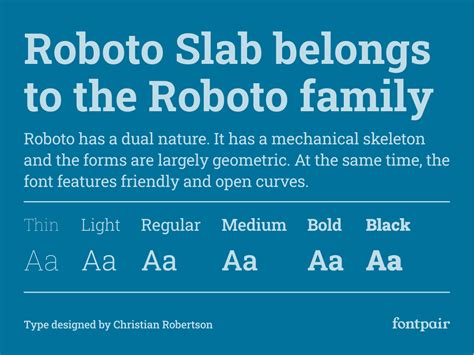
Roboto Slab Font. Web this makes for a more natural reading rhythm more commonly found in humanist and serif types. Web explore roboto slab available at adobe fonts.
Web explore roboto slab available at adobe fonts. Web this is the roboto slab family, which can be used alongside the normal roboto family and the roboto condensed family. The font is licensed for. This is the roboto slab. Web this makes for a more natural reading rhythm more commonly found in humanist and serif types. A slab serif typeface with 4 styles, available from adobe fonts for sync and.
Web explore roboto slab available at adobe fonts. A slab serif typeface with 4 styles, available from adobe fonts for sync and. The font is licensed for. Web this is the roboto slab family, which can be used alongside the normal roboto family and the roboto condensed family. Web this makes for a more natural reading rhythm more commonly found in humanist and serif types. Web explore roboto slab available at adobe fonts. This is the roboto slab.